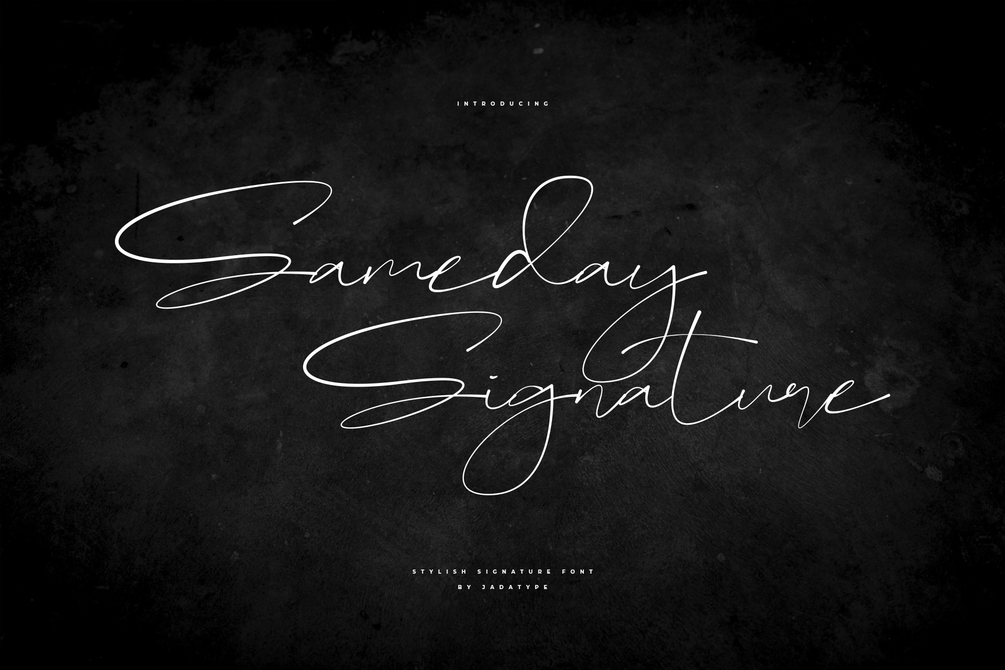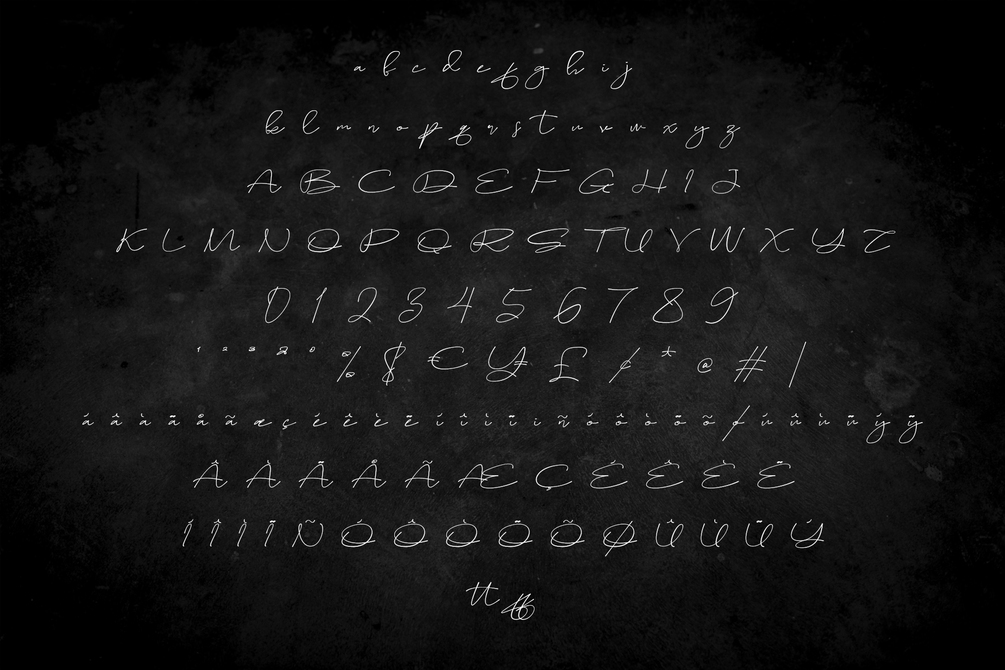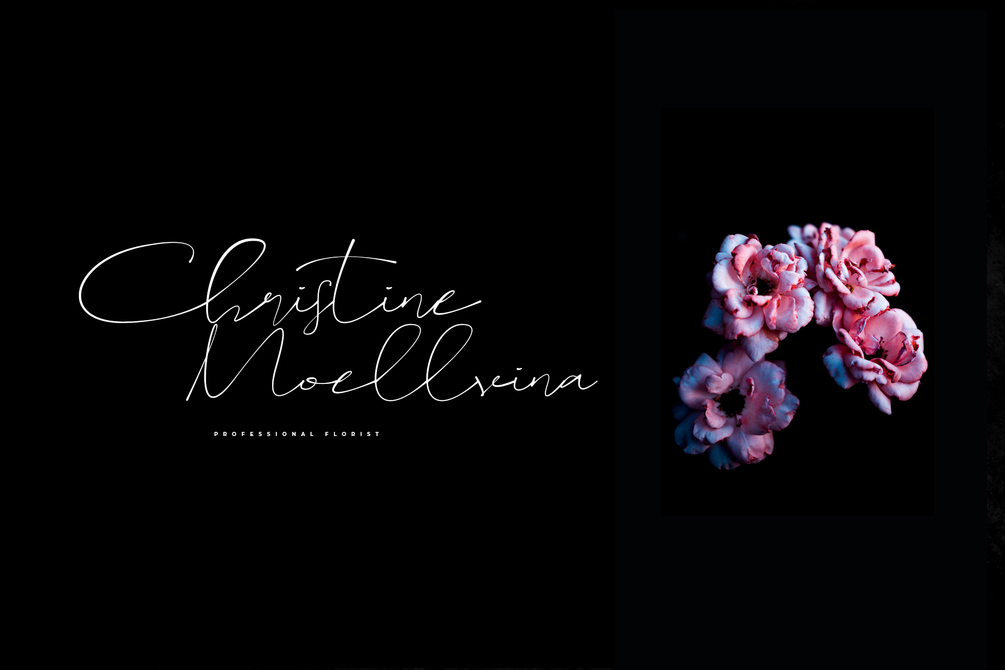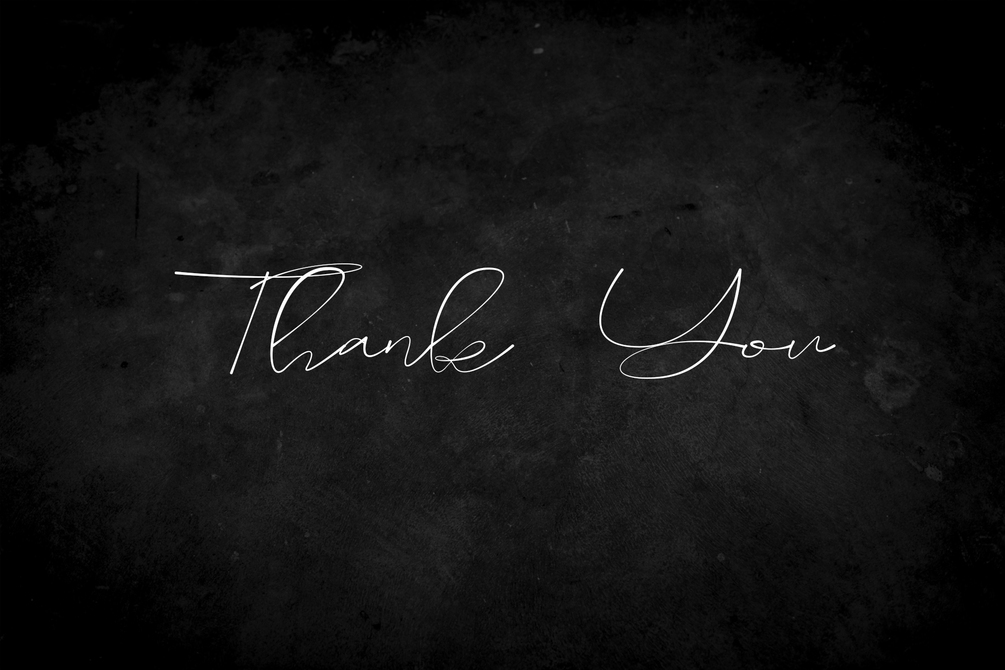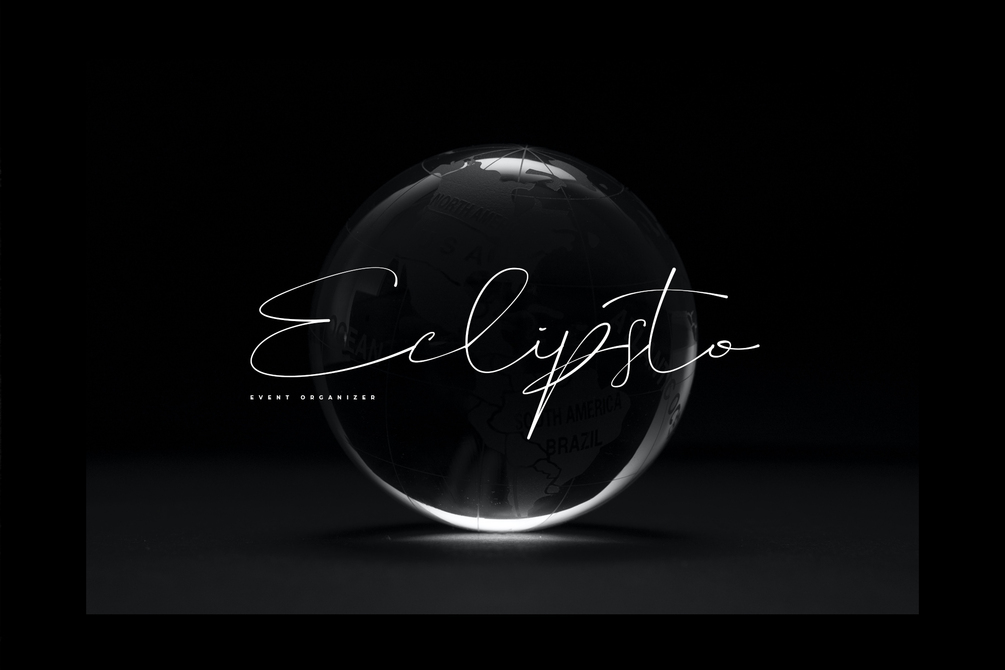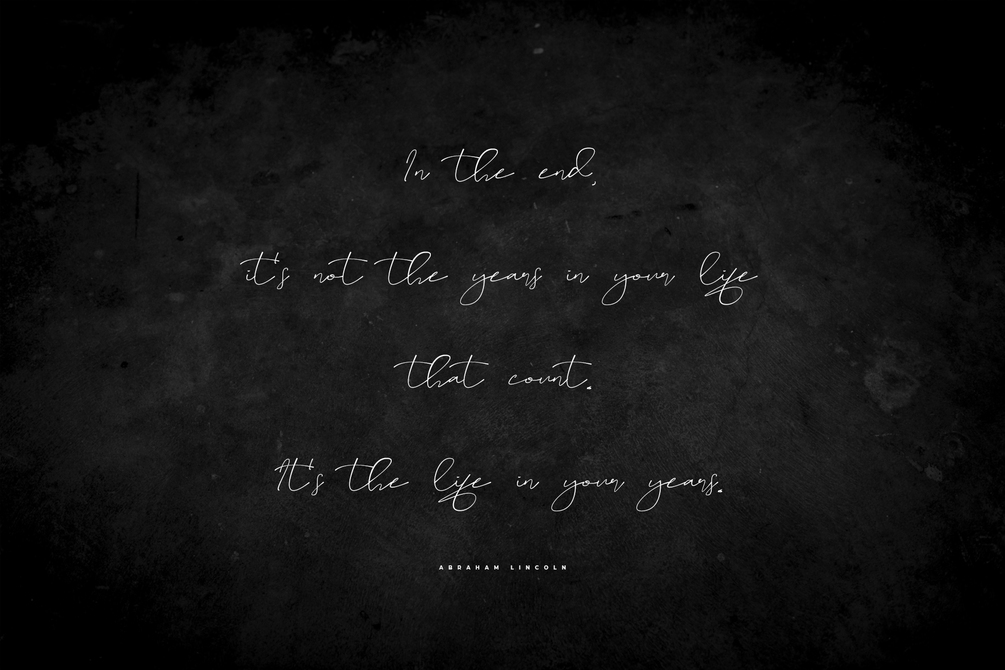
Sameday Signature
Sameday Signature is a font with stylish signature. suitable for branding, music cover, logotype, products, handwritten and so on. contains standard English letters, numbers, punctuation, and several accents that support multilingualism.